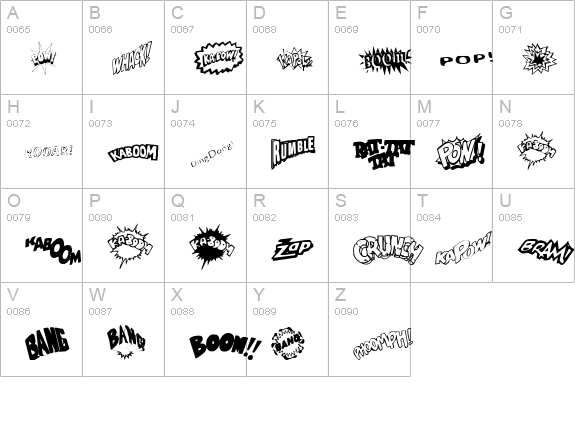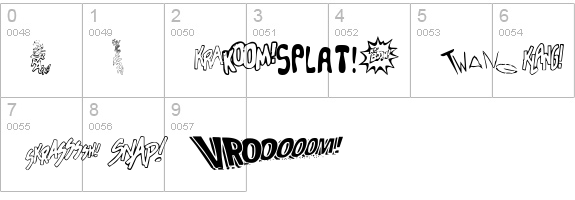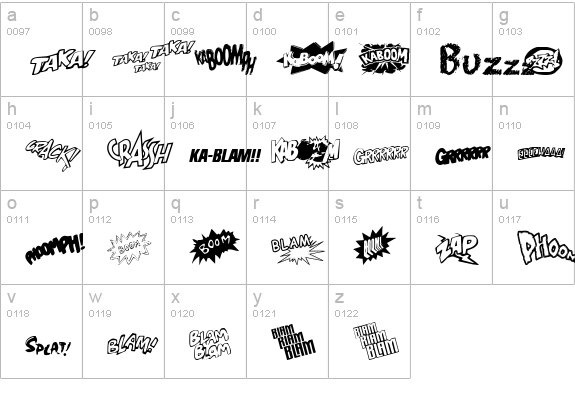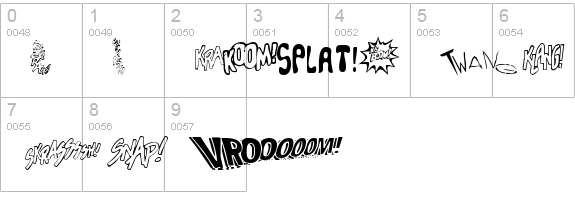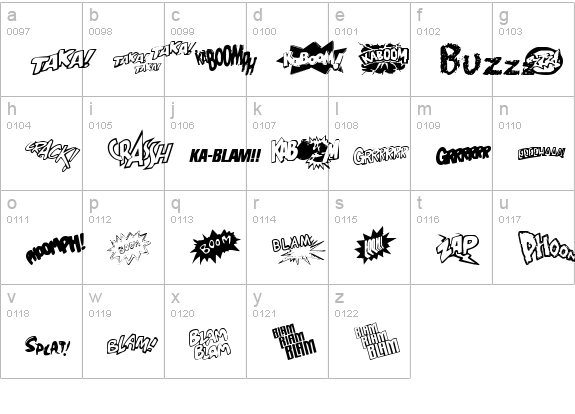
Sound FX Font Details
Introducing Sound FX, a remarkable and captivating font that is sure to bring your designs to life! This unique typeface perfectly captures the essence of sound effects, with its dynamic and expressive letterforms. Each character is meticulously crafted to resemble the energetic bursts, vibrations, and motion of various sounds. Sound FX is the perfect choice for projects that require a touch of excitement and playfulness. Whether you're designing posters for a music festival, creating eye-catching logos for a sound production company, or simply adding a dash of creativity to your personal projects, this font will undoubtedly make a lasting impression. What makes Sound FX even more remarkable is that it is freely available to download at FontsMarket.com. Yes, you read that right – this stunning font can be yours without any cost! It's a fantastic opportunity to enhance your design arsenal with a font that stands out from the crowd, all while saving your budget. With Sound FX, you can unleash your creativity and let your designs speak volumes. So, why wait? Go ahead and experience the magic of Sound FX by downloading it for free at FontsMarket.com. Elevate your designs to new heights and create a visual symphony that captivates and delights your audience.